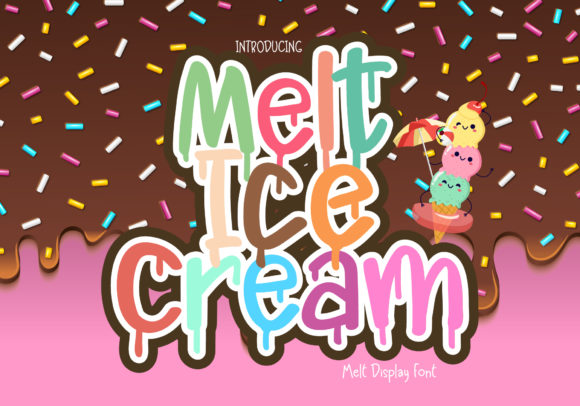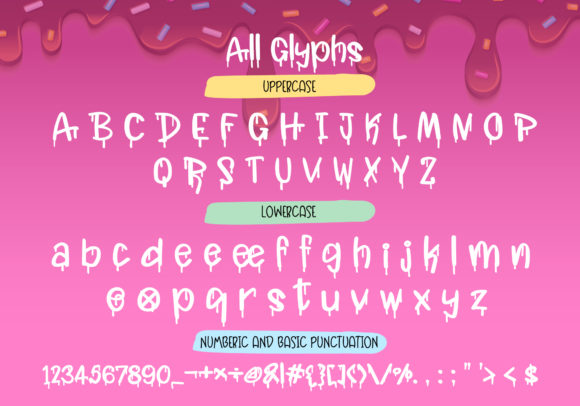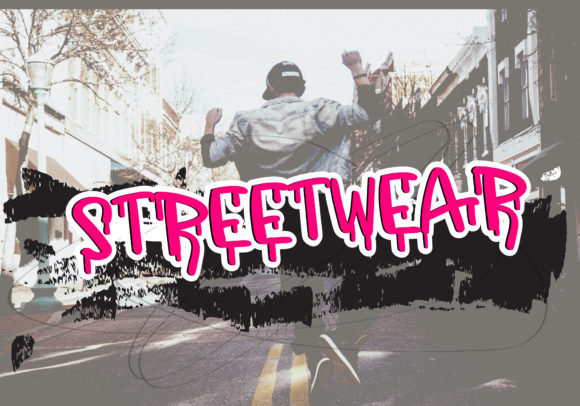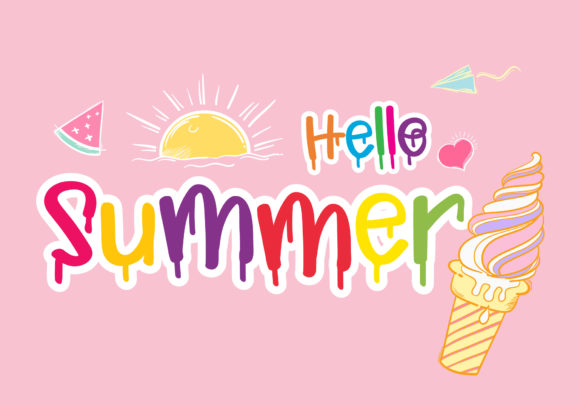
Melt Ice Cream Font: A Cute Display Font for Playful DIY Projects
About the Melt Ice Cream Font
Let us introduce you to Melt Ice Cream Font, where timeless design meets modern craftsmanship. Melt Ice Cream is a cute and fun display font. It embodies playfulness and authenticity and is the perfect choice for any children activity or school project. Add this chunky lettered font to your designs and notice how it makes them come alive!
Melt Ice Cream’s playful personality makes it ideal for children’s book covers, ice cream shop branding, playful posters, or packaging for sweet treats. Its chunky letterforms work well in headlines and short, impactful statements, but its limited x-height makes it less suitable for body text or UI elements requiring readability at smaller sizes.
For optimal visual harmony, pair Melt Ice Cream with a clean sans-serif like Open Sans for body copy, balancing its playful energy with a touch of professionalism. Alternatively, a classic serif like Garamond could add a touch of sophistication, creating a charming contrast.
The font’s overall mood is undeniably cheerful and friendly, making it a great choice for brands targeting a young, lighthearted audience.
Melt Ice Cream Font Usage Examples
Melt Ice Cream Font Example